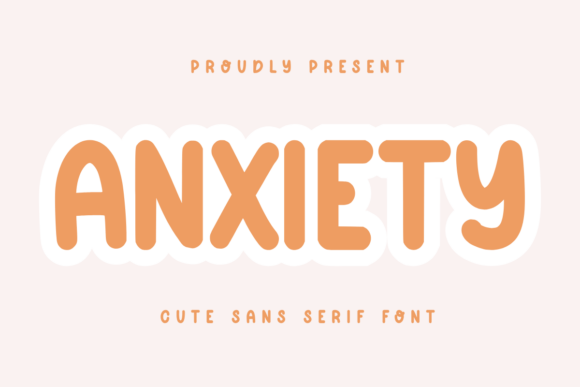
Unleash Your Creativity with Anxiety Font
Do you ever find yourself in a creative flow, surrounded by colorful pens, sticky notes, and half-finished projects? You’re not alone. The spark of inspiration can strike at any moment, and it’s up to us to capture it. As creatives, we’re always on the lookout for the perfect tools to bring our ideas to life.
That’s where Anxiety Font comes in – a delightful sans serif font designed to add a touch of whimsy to your projects. Perfect for stickers, notes, planners, and more, Anxiety Font is your go-to companion for creating unique and personalized items. Whether you’re a seasoned designer or a crafty enthusiast, this font is a valuable addition to your creative arsenal.
Anxiety Font Key Features
• Font Family: Anxiety Font is a sans-serif font family designed to convey a sense of unease and tension.
• Character Set: Includes a wide range of characters, including uppercase and lowercase letters, numbers, punctuation marks, and special characters.
• Unique Characteristics: Features a distinctive, irregular letterform design that creates a sense of unease and tension, making it perfect for conveying anxious or apprehensive emotions in design projects.
Anxiety Font Review
Overall, I have mixed feelings about the Anxiety Font. While it has some great qualities, it also falls short in a few areas.
• Unique aesthetic: The Anxiety Font has a distinctive, hand-drawn feel that sets it apart from more traditional fonts. This makes it a great choice for anyone looking to add some personality to their design.
• Expressive characters: The font’s characters are full of flair and emotion, making it well-suited for projects that require a touch of whimsy.
• Good legibility: Despite its unconventional style, the Anxiety Font is surprisingly easy to read, especially in larger sizes.
• Difficult to read in small sizes: While the font is legible in larger sizes, it can become difficult to read when scaled down to smaller sizes.
• Limited font weights: The Anxiety Font is currently only available in a few different weights, which can limit its versatility in certain design projects.
• Not ideal for body text: Due to its unique style and limited legibility in small sizes, the Anxiety Font is not well-suited for body text or large blocks of text.
Overall impression
The Anxiety Font is a great choice for designers who want to add some personality and flair to their projects. However, it may not be the best choice for every project, especially those that require clear and concise body text. With a bit more development and refinement, this font has the potential to become a go-to choice for designers looking to add some emotional depth to their work.
Tips for Getting the Most Out of Anxiety Font
Experiment with different font sizes and styles to create a dramatic effect. Use Anxiety Font to draw attention to key points or to create a sense of urgency. Be mindful of the overall design and balance when using this font.
Anxiety Font is ideal for creating eye-catching headlines, highlighting important information, or adding a touch of drama to your designs. It’s also suitable for use in social media posts, blog articles, and marketing materials.